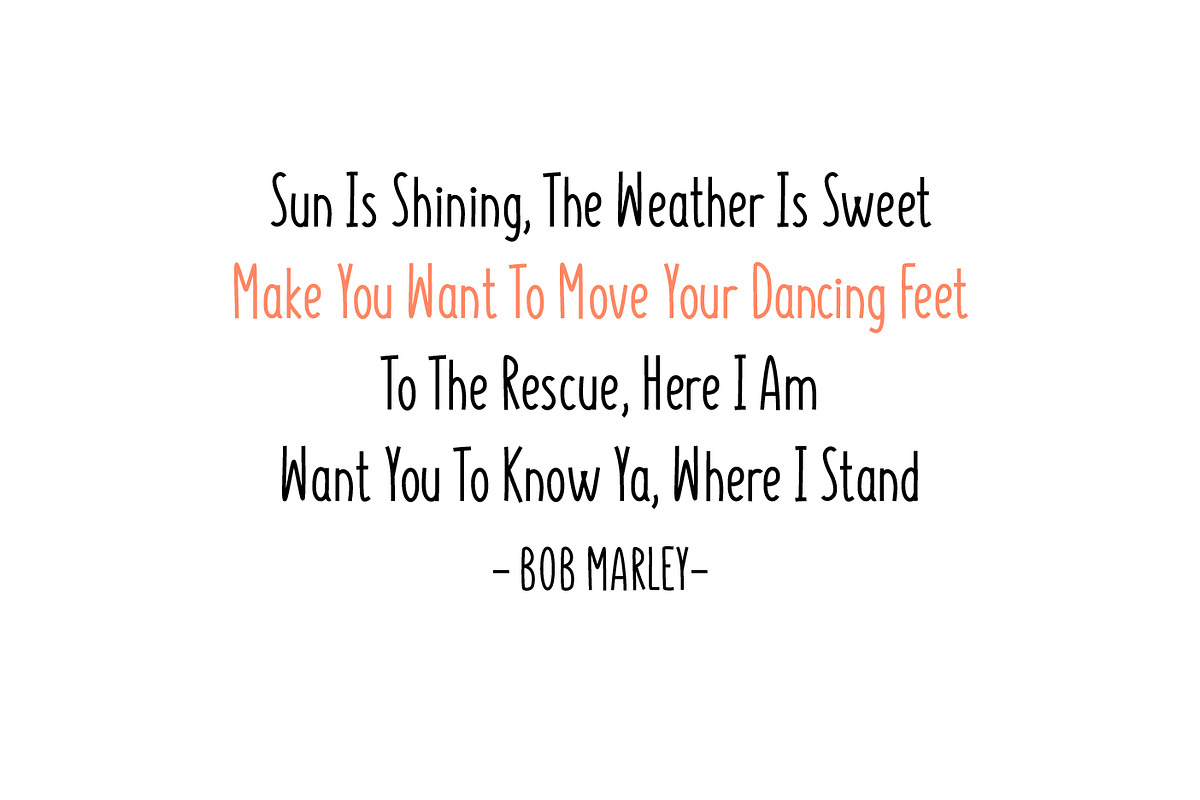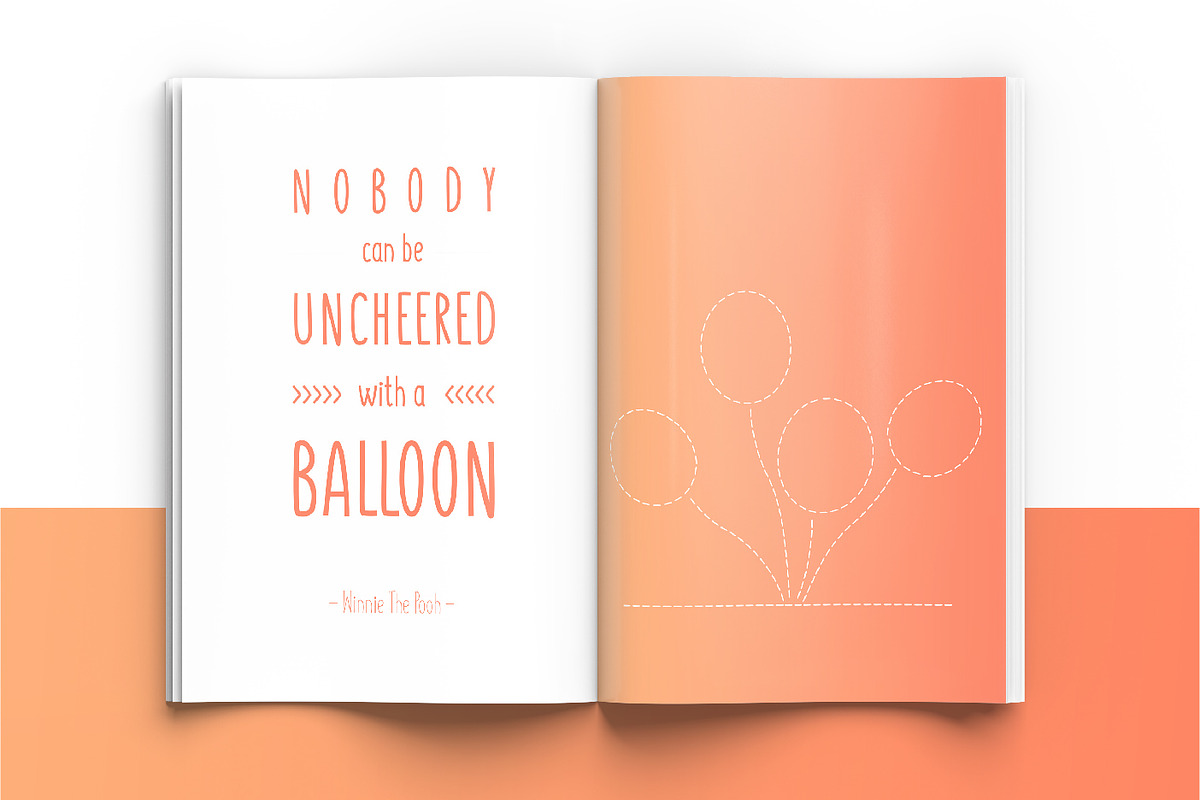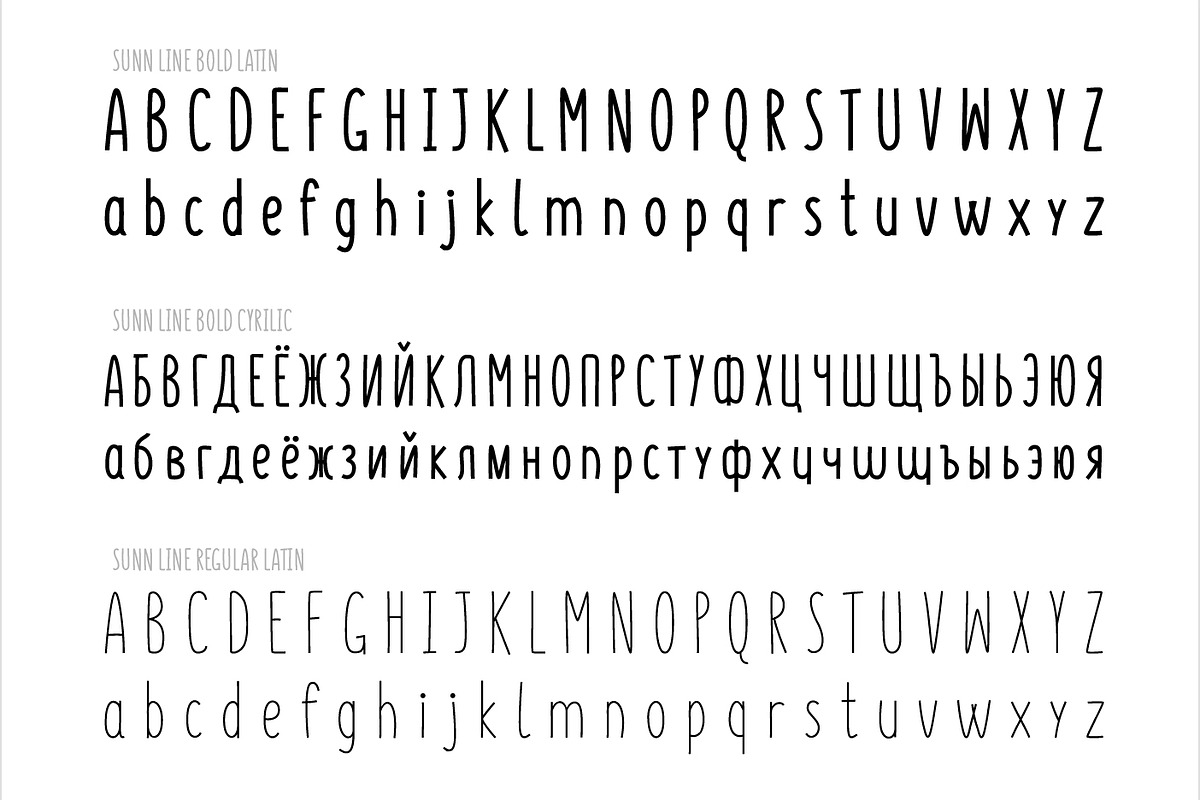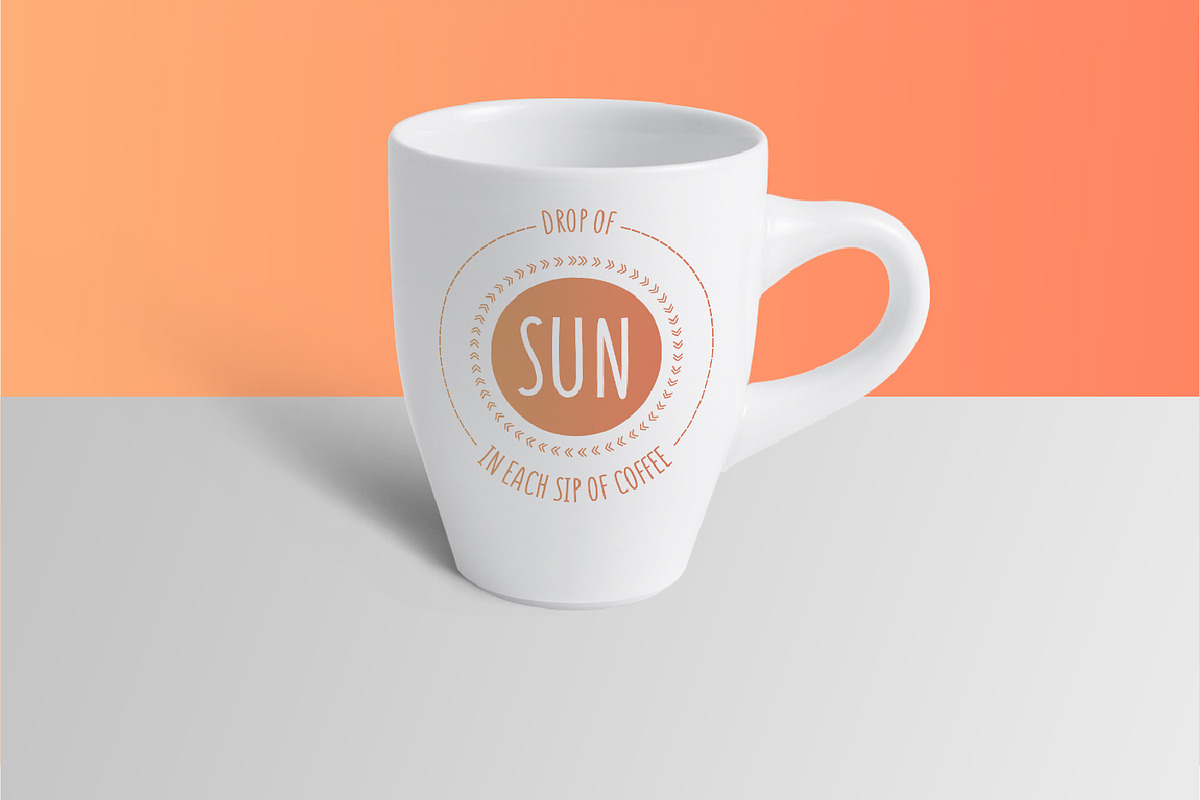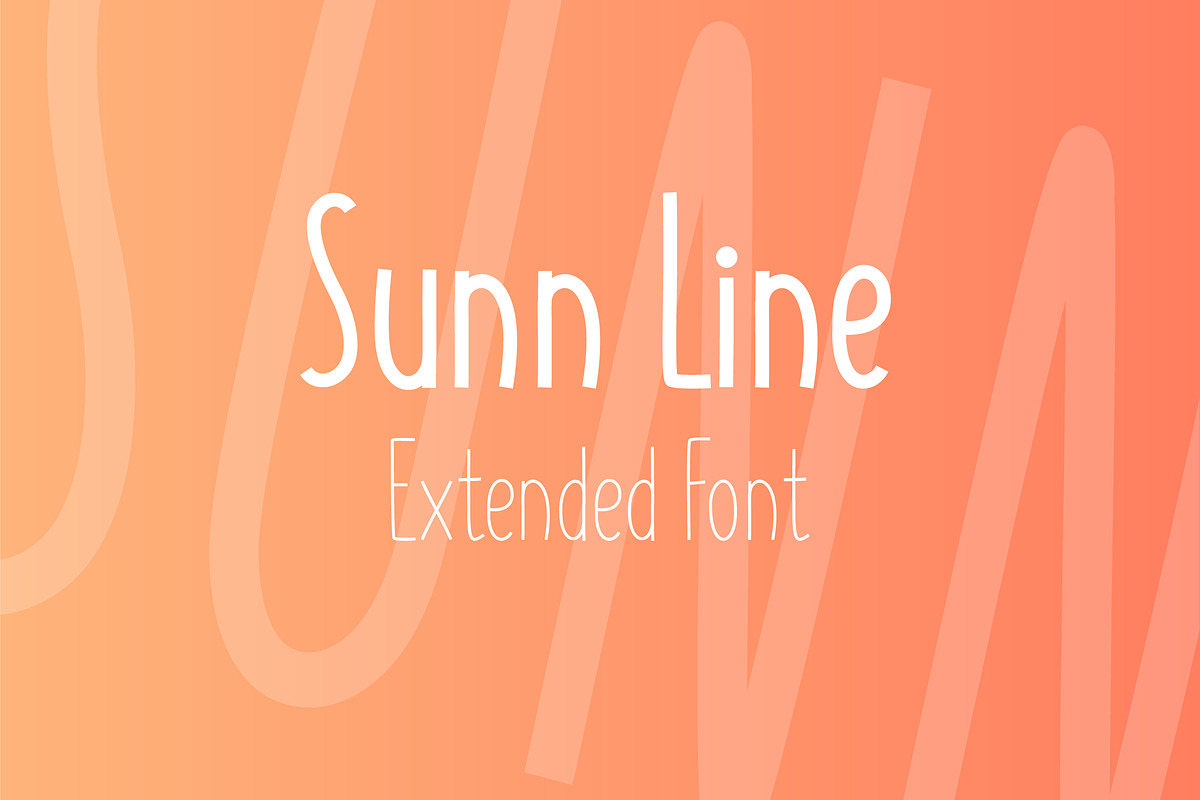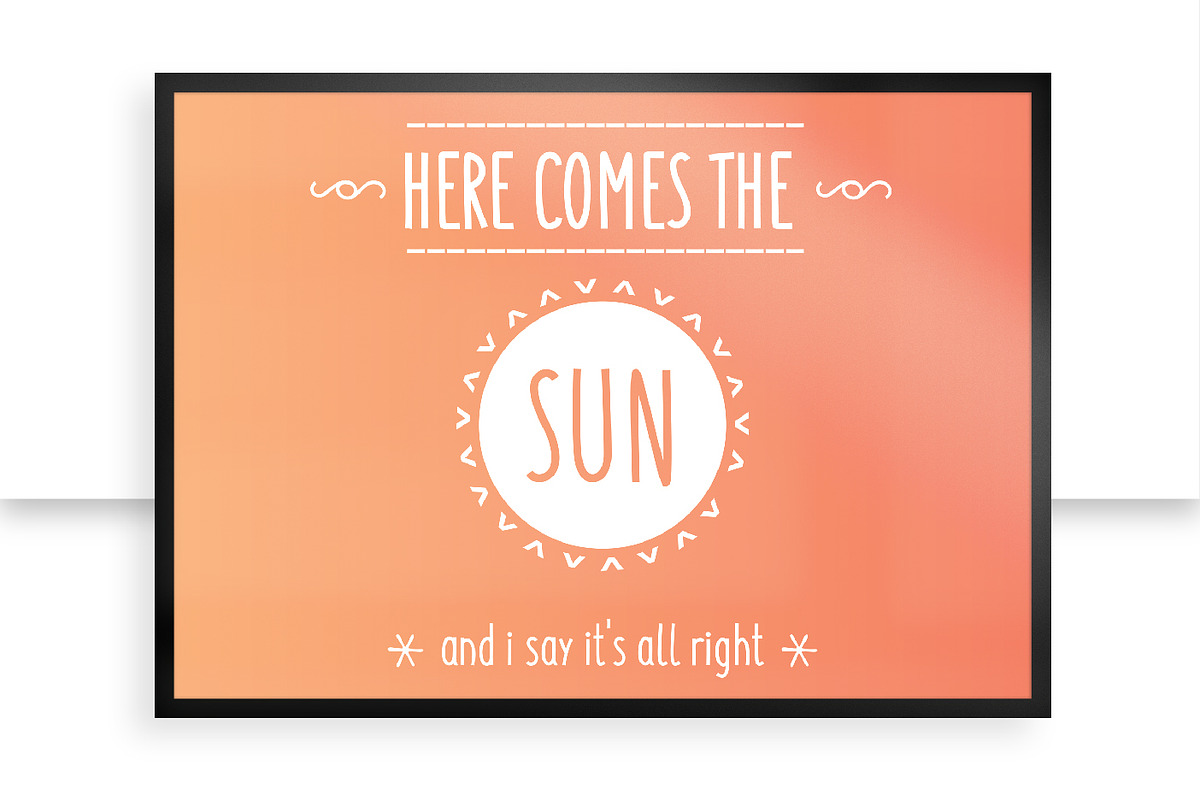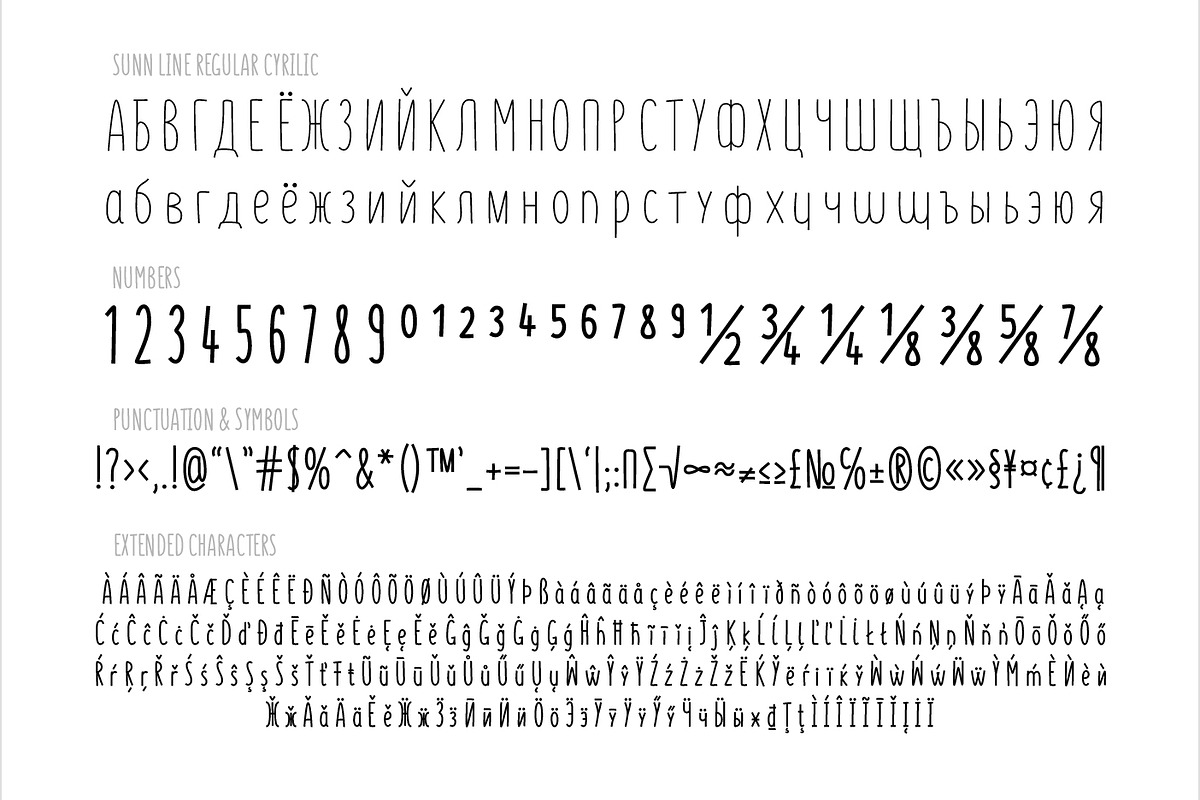
SUNN Line Extended Font
SUNN Line Extended Font by Wild Ones is a font selected for branding, posters, packaging, typography.
- SUNN Line Regular
- SUNN Line Bold
Why SUNN Line Extended Font is worth a look
SUNN Line Extended Font by Wild Ones fits naturally into Branding, posters, packaging, typography.